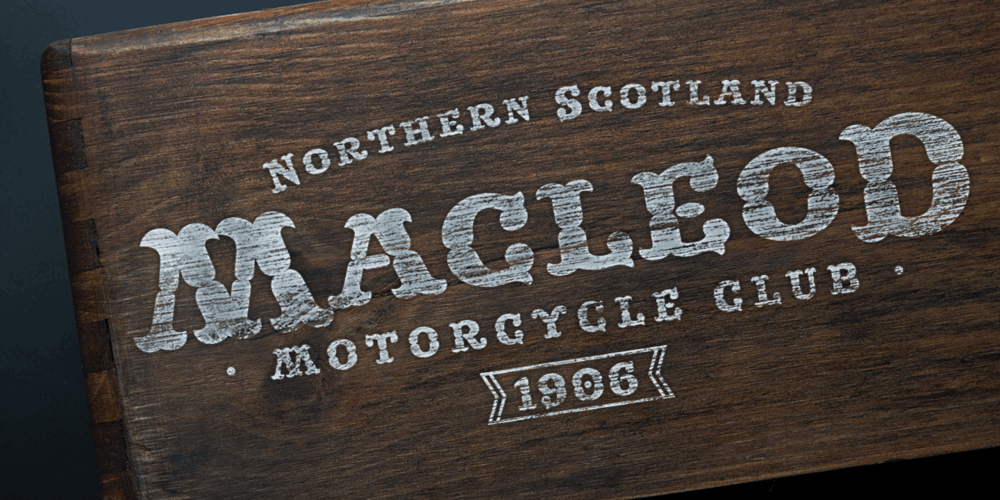
MFC Buttergin Monogram Font Family was designed by Jim Lyles, Brian J. Bonislawsky and published by Monogram Fonts Co.. MFC Buttergin Monogram contains 5 styles and family package options. The inspiration source for Buttergin Monogram is a highly ornate lettering style from the book, “Letters and Lettering” by Carlyle & Oring. This fantastic lettering style was originally depicted only with Capitals and Numbers, which we’ve lovingly recreated to include smallcaps for the purpose of Monogramming, Signs, and Headlines. From the original style that had a drop shadow and line shading, we extrapolated solid and a clean outline with drop shadow styles for more versatility of use. See the Guidebook for explanation of monogram formatting possibilities. A PDF guidebook for MFC Buttergin Monogram is available under the Gallery tab.